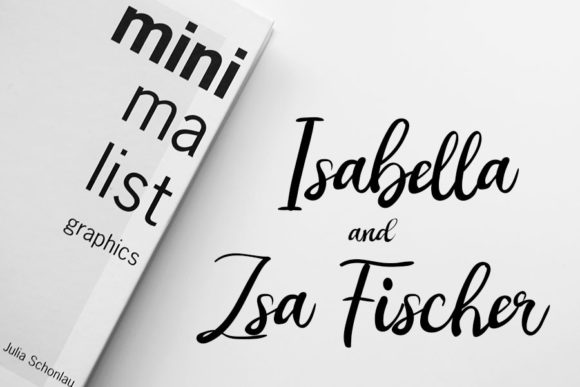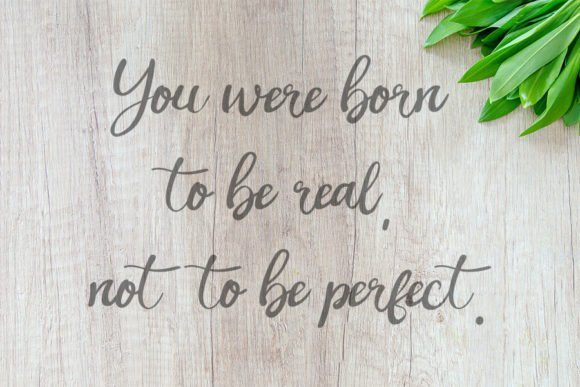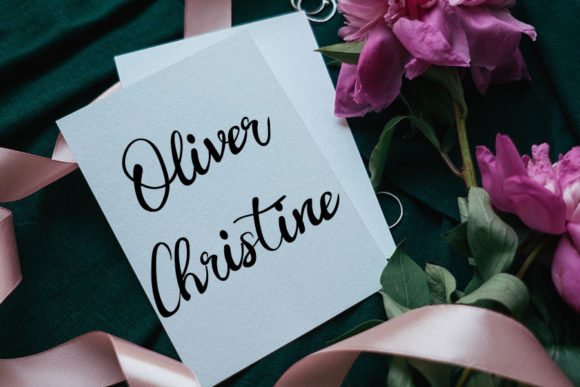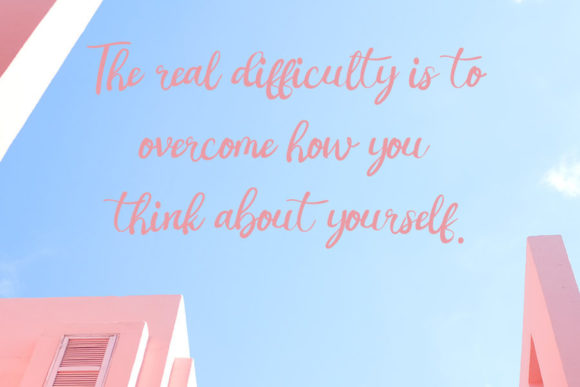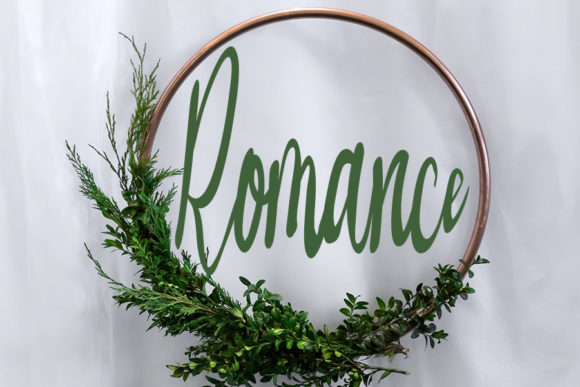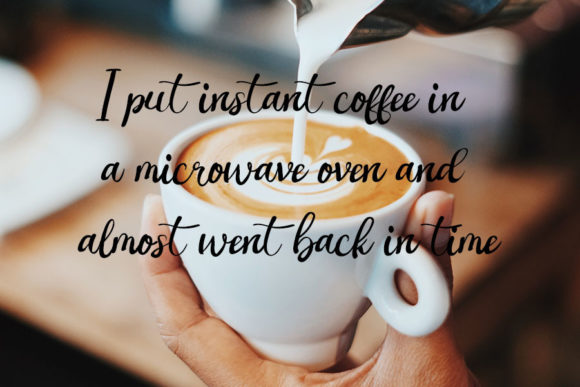
Introduction to Larasaty Font
Have you ever been working on a creative project, pouring your heart and soul into every detail, only to feel like something is missing? The perfect font can make all the difference. That’s where the Larasaty Font comes in – a stunning, handcrafted typeface that will elevate your designs to new heights.
As a valuable resource for designers, the Larasaty Font offers a unique blend of classic calligraphy and modern flair. Its high-quality design makes it a must-have for any project, from elegant wedding invitations to trendy social media graphics. With its transparent background and free download option, you can easily incorporate this beautiful font into your workflow.
Whether you’re a seasoned pro or just starting out, the Larasaty Font is sure to become your new favorite design companion. Its versatility and charm will make your creative projects shine, and its affordability will leave you feeling confident and inspired.
Key Features of Larasaty Font
- High-quality design resource ideal for creative projects, offering a unique and modern look.
- Perfect for use in various creative projects, including logos, graphics, and typography-based designs.
Honest Review: Larasaty Font
I recently had the chance to work with the Larasaty Font, and I must say it’s been a great addition to my design resource library. The font is perfect for creating a unique, high-quality look for my creative projects.
- Unique Character Set: The Larasaty Font has a distinct set of characters that add a touch of elegance to any design project.
- Transparent Background: The font’s transparent background makes it easy to integrate with other design elements.
- Limited Customization Options: While the font itself is beautiful, it would be great to have more options for customizing the font’s appearance.
- No Bold or Italic Variations: The font only comes in a regular style, which can be limiting for certain design projects.
Overall, I’m impressed with the Larasaty Font. Its unique character set and transparent background make it a valuable addition to any designer’s toolkit. While it may have some limitations, I highly recommend it for designers looking for a high-quality, free font for their creative projects.
Larasaty Font
Tips for Getting the Most Out of Larasaty Font
Use Larasaty Font for high-quality designs, such as posters, flyers, and brochures. This font is perfect for creative projects that require a unique and stylish design. To get the most out of Larasaty Font, experiment with different font sizes, colors, and styles to create a visually appealing design.